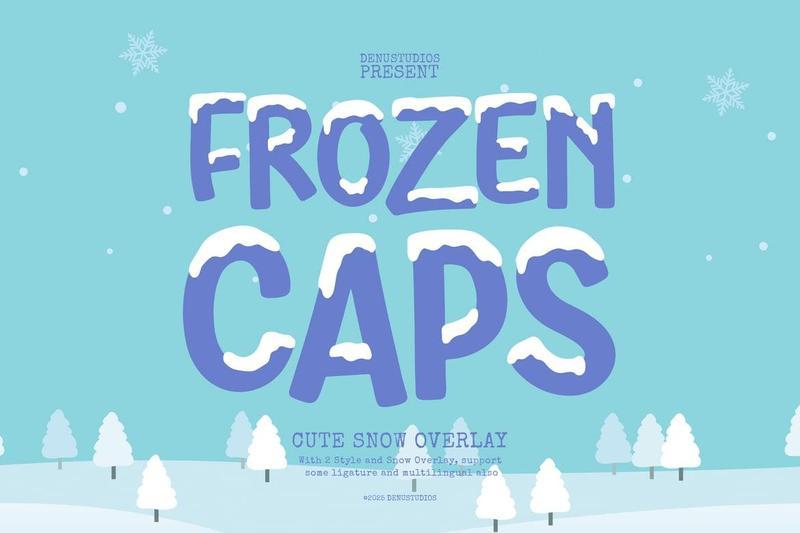
Frozen Caps | Cute Snow Overlay JLW6DQE
The Frozen Caps font is designed to deliver a strong, versatile visual character, balancing aesthetics and readability. Every detail is carefully crafted to ensure a clear, consistent, and visually appealing result across a wide range of design needs.
With well-structured letter proportions and support for features such as alternate characters and ligatures, this font allows for greater creative exploration. The final result is dynamic, distinctive, and professional, making it adaptable to a range of design styles.